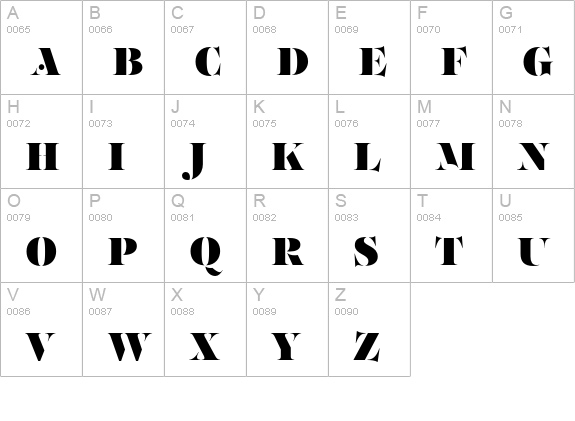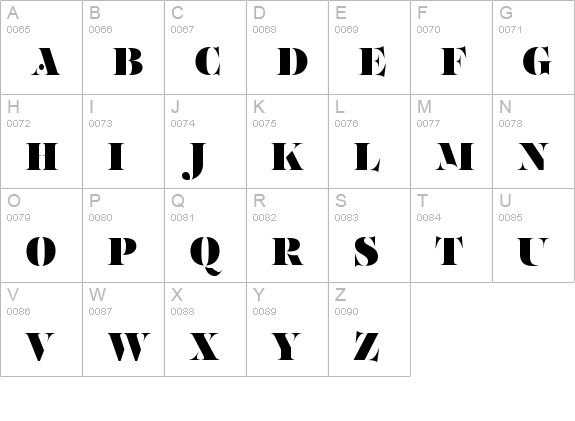
PFRegalStencilPro-UBlack is a striking and elegant stencil font that exudes sophistication and modernity. Its bold and structured design makes it perfect for creating impactful headlines, logos, and branding materials. The sharp edges and clean lines of this font give it a polished and professional look that is sure to make a statement. What's even better is that PFRegalStencilPro-UBlack is available for free download at FontsMarket.com. This means that you can easily access this premium font without any cost. Whether you are a designer looking to add a touch of class to your projects or a business owner in need of a distinctive font for your branding, PFRegalStencilPro-UBlack is a versatile choice that won't disappoint. Download it today and elevate your designs with this exceptional typeface.